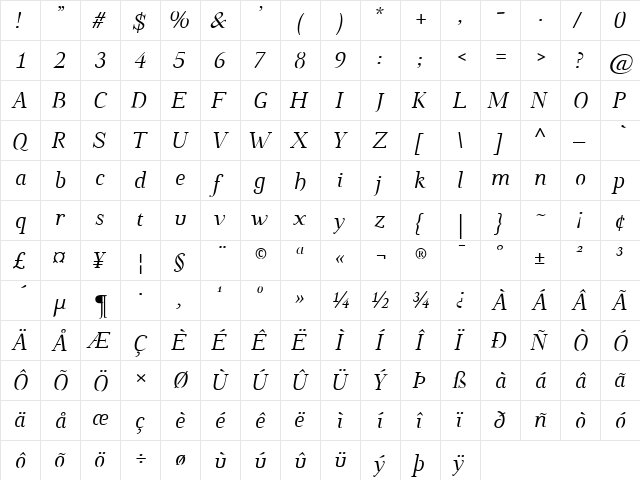
Omologo Personal Italic
Design Context for Omologo Personal Typeface
Omologo Personal offers clean, dependable letterforms without strong stylistic allegiance, making it a practical choice for designers who need flexibility. The dynamic lean of this cut emphasises speed and emphasis in any layout.
Pro Tip: Use Omologo Personal for emphasis, pull quotes, and subheadings where its slanted energy can add rhythm to the layout.